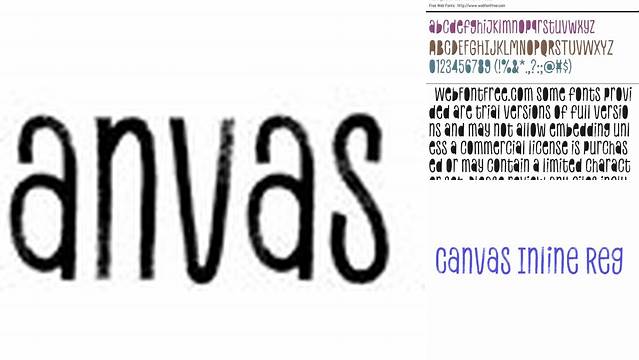
Understanding Canvas Inline Fonts and Their Appeal
Hey guys, let's dive into the awesome world of Canvas inline fonts! You've probably seen them around – those cool, often handwritten-style fonts that look like they're drawn directly onto a surface, giving designs a unique, almost tangible feel. What makes them so special? Well, they bring a level of personality and authenticity to your projects that standard fonts just can't match. Think of those Instagram stories or graphic tees where the text looks like it was hand-lettered; that's often the magic of inline fonts! The "inline" aspect refers to the characteristic line or outline that typically runs through the center of the letterforms, creating a distinctive visual style. This feature adds depth and a touch of artistic flair, making your text pop without being overwhelming. They're incredibly versatile too, working wonders for everything from branding and logos to social media graphics, invitations, and even digital scrapbooking. The beauty of finding free Canvas inline fonts is that you can experiment and elevate your creative output without breaking the bank. We're talking about fonts that can give your digital creations a distinct, artisanal touch, making them stand out in a crowded online space. So, whether you're a seasoned designer looking to expand your font library or a beginner just starting out, understanding and utilizing these fonts can seriously up your game. They provide a fantastic way to inject personality and a bespoke feel into your work, making it instantly more engaging and memorable for your audience. It's all about making your text look less like typed words and more like a deliberate artistic choice.
Why Free Canvas Inline Fonts Are a Designer's Best Friend
Alright, let's talk about why free Canvas inline fonts are such a game-changer for creatives, especially when you're on a budget. As designers, we're always on the hunt for resources that can make our work shine without costing a fortune. Free fonts, and specifically these cool inline styles, are like hidden treasures. They offer a professional aesthetic and a unique character that can elevate your designs from ordinary to extraordinary. Imagine needing a font for a client's wedding invitation that has that perfect, elegant yet slightly whimsical feel – an inline font can often hit that sweet spot. Or perhaps you're creating merchandise for a new band and want something with a bit of an edgy, hand-drawn vibe. These fonts are your secret weapon! The accessibility of free Canvas inline fonts means you can experiment with different styles and find the perfect fit for each project without commitment. It’s not just about saving money; it's about having the creative freedom to try new things. You can download a bunch, test them out in your designs, and if they don't quite work, no harm done. This iterative process is crucial for design, and having a vast library of free resources fuels that exploration. Plus, many of these fonts are released under licenses that allow for commercial use, which is a massive plus for freelancers and small businesses. So, when you find a great free inline font, it’s not just a download; it’s a potential new tool in your creative arsenal that can significantly boost your project's visual appeal and brand identity. It’s truly empowering to have access to such quality design elements without the usual price tag.
Exploring the Diverse Styles of Inline Fonts for Canvas
So, you're looking for Canvas inline fonts, but did you know there's a whole spectrum of styles within this category? It's not just one look! We've got everything from super casual, brush-stroke styles that look like they were painted yesterday, to more refined, script-like fonts with elegant, flowing lines. Then there are the bolder, blockier inline fonts that give off a retro or even a sporty vibe. Think about the context of your design, guys. Are you going for something sweet and romantic for a wedding or baby shower invite? A delicate, loopy inline script might be perfect. Need something to convey energy and excitement for a sports event poster or a music festival flyer? A chunky, dynamic inline font could be your go-to. The beauty of the "inline" feature is how it can be interpreted differently. Some fonts have a very thin, almost unnoticeable line running through them, adding just a hint of subtle detail. Others boast thick, prominent stripes that are a central design element themselves. When you're searching for free Canvas inline fonts, pay attention to these nuances. Do you want a font that's easy to read from a distance, or one that rewards closer inspection with intricate details? Some inline fonts even play with texture, mimicking distressed paper or rough canvas, which adds another layer of visual interest. Understanding these stylistic variations will help you zero in on the exact feel you want to achieve, ensuring your chosen font perfectly complements your overall design vision and message. It’s about picking the right tool for the job, and with inline fonts, there are plenty of distinct tools available!